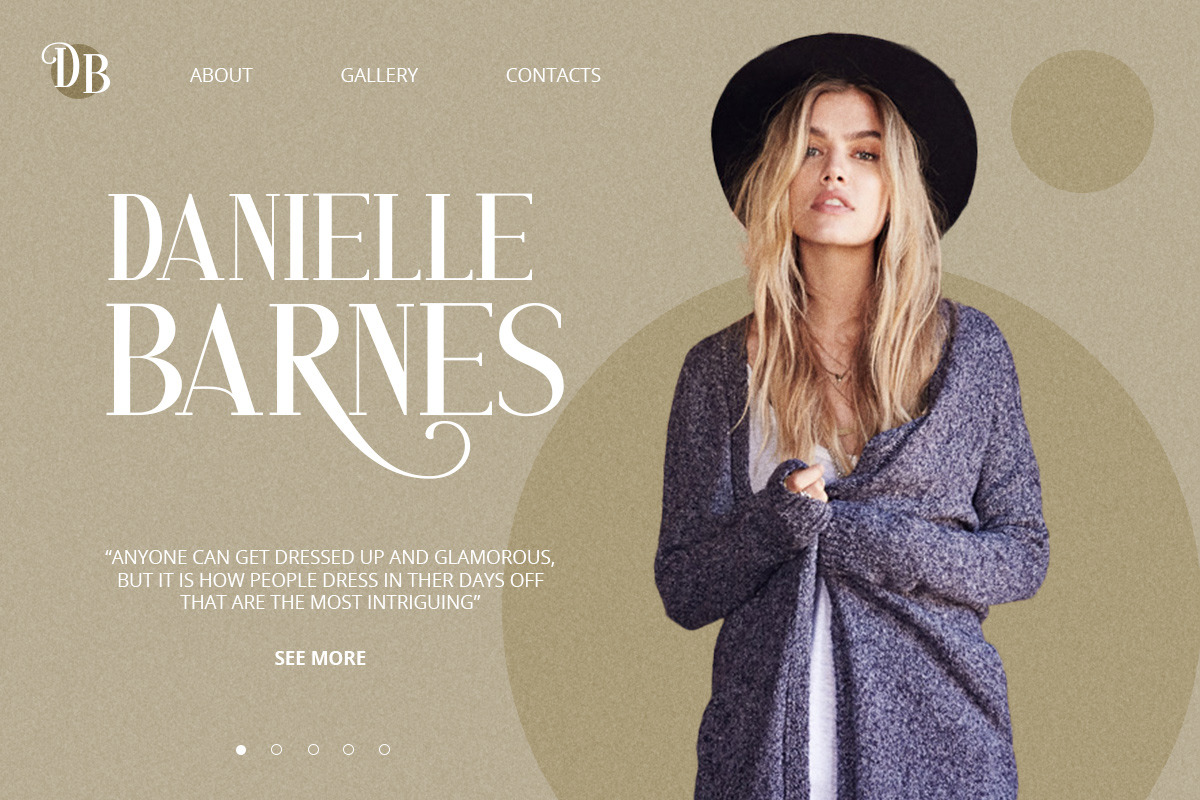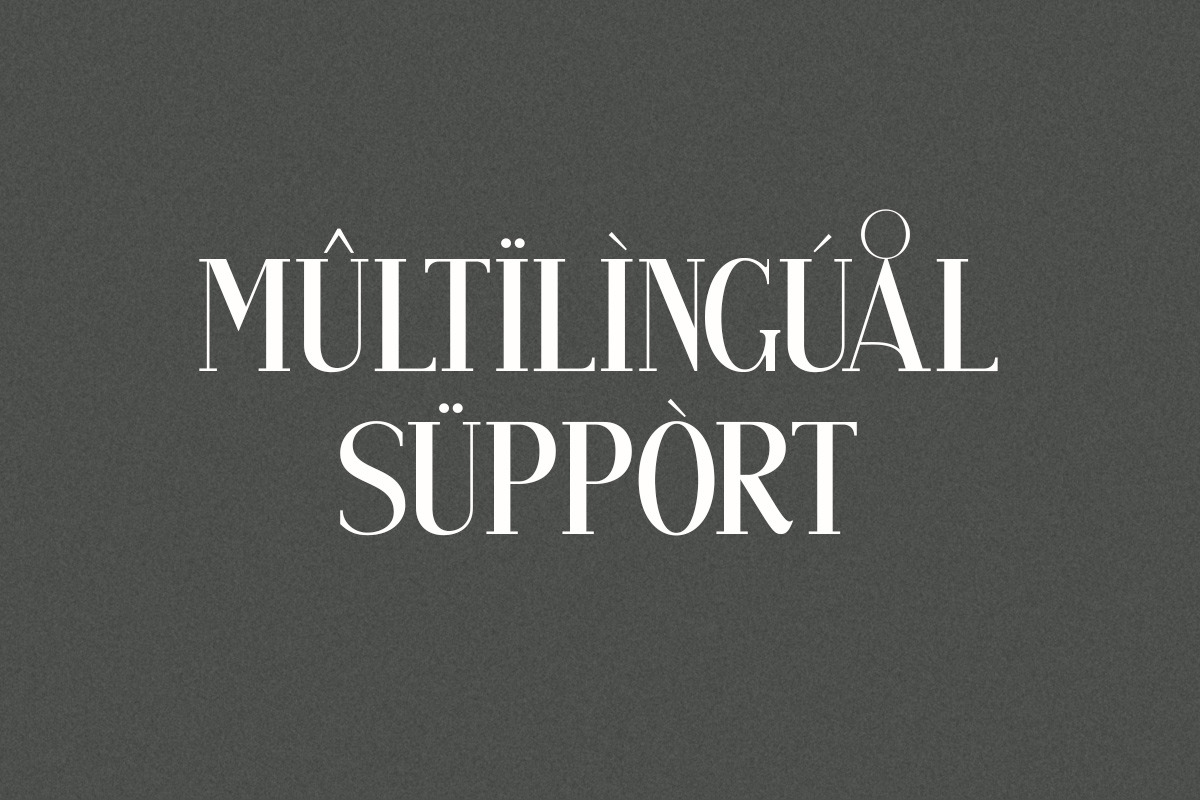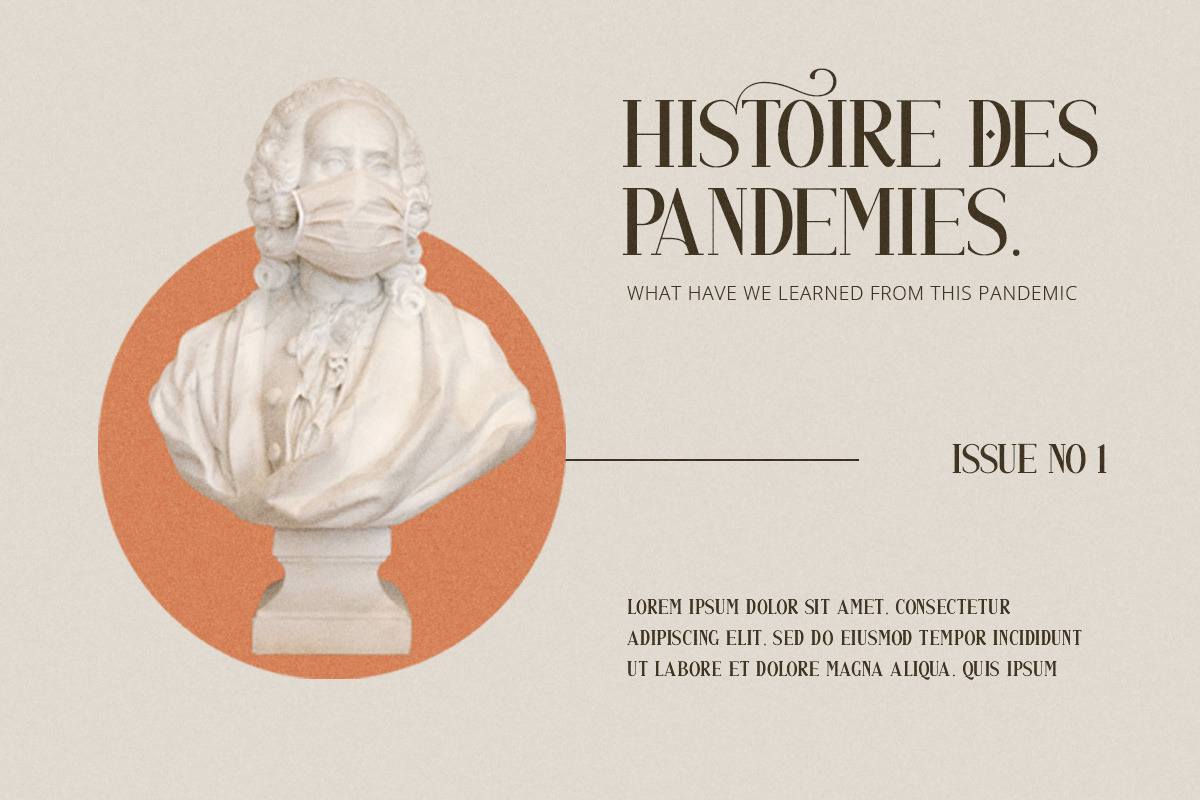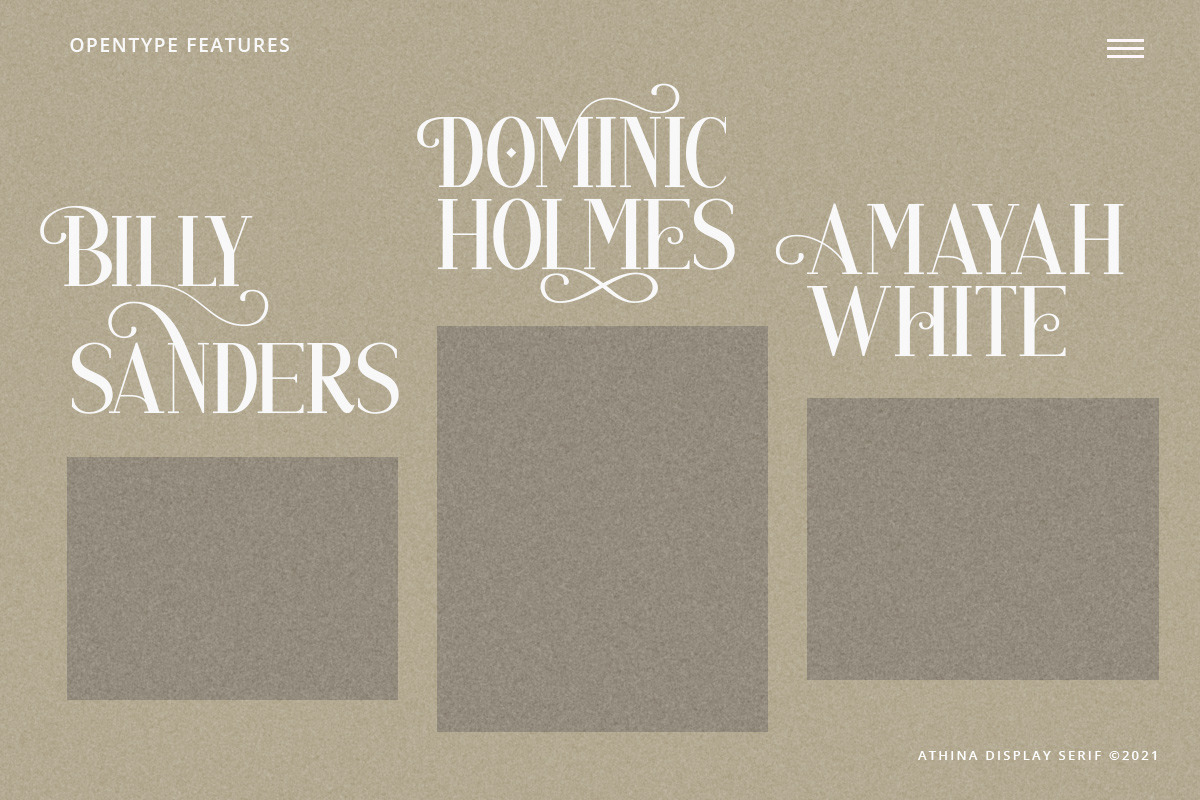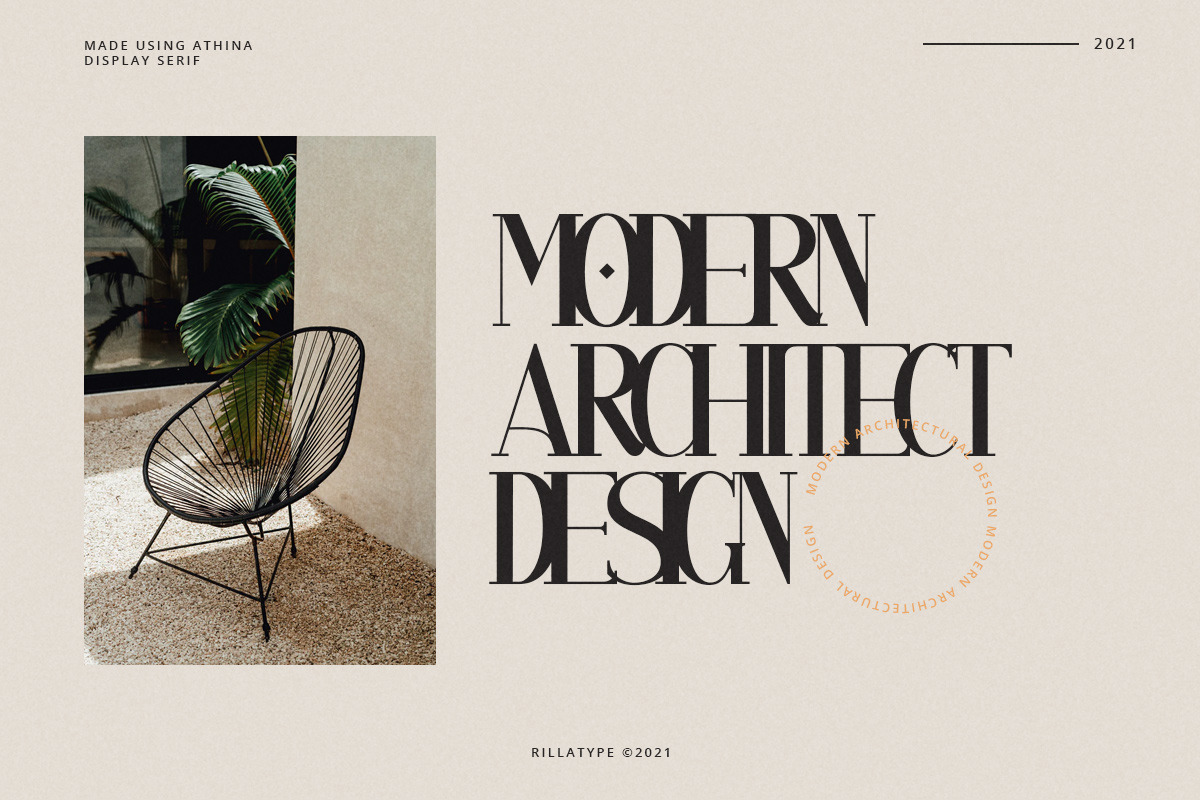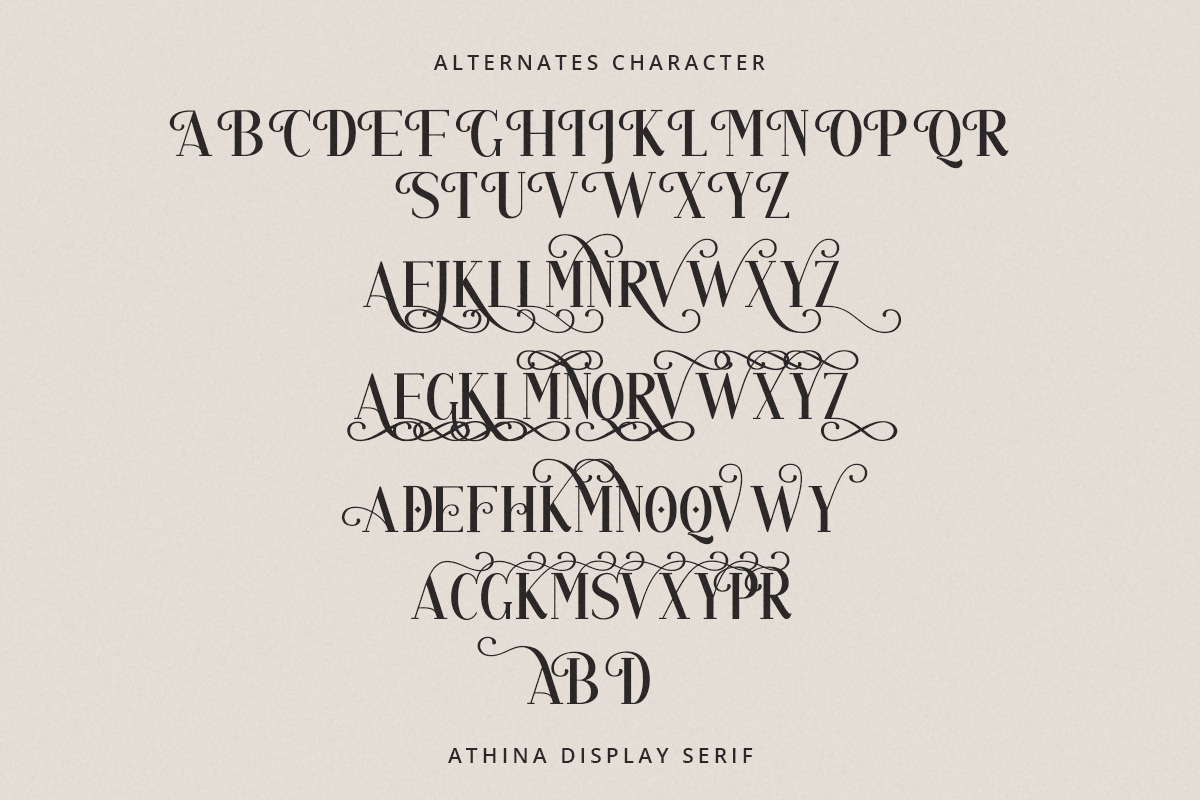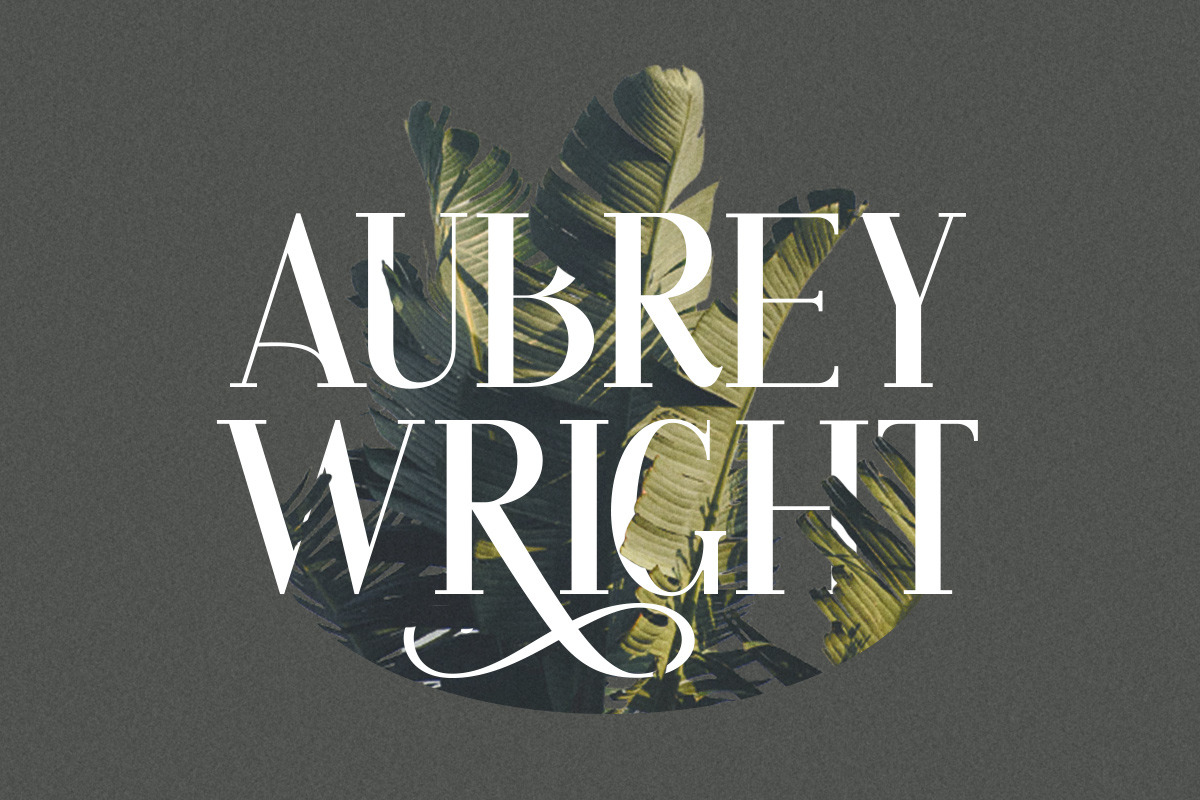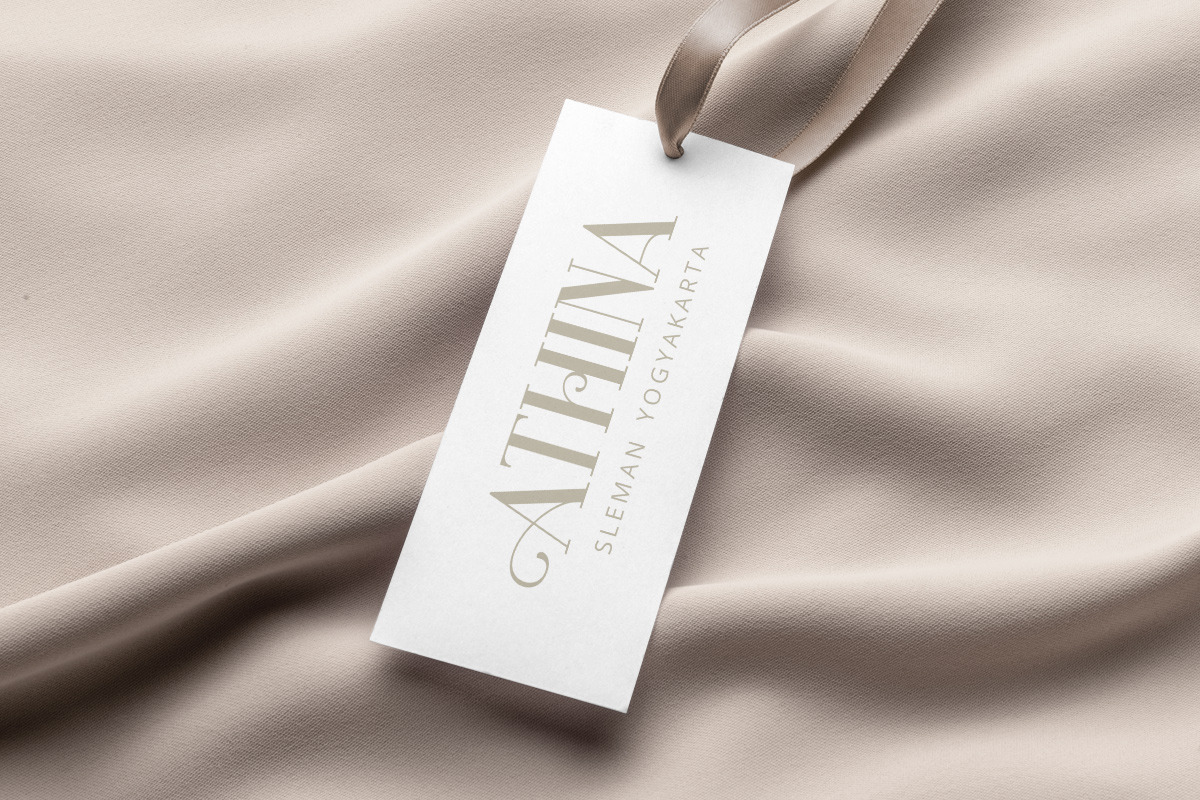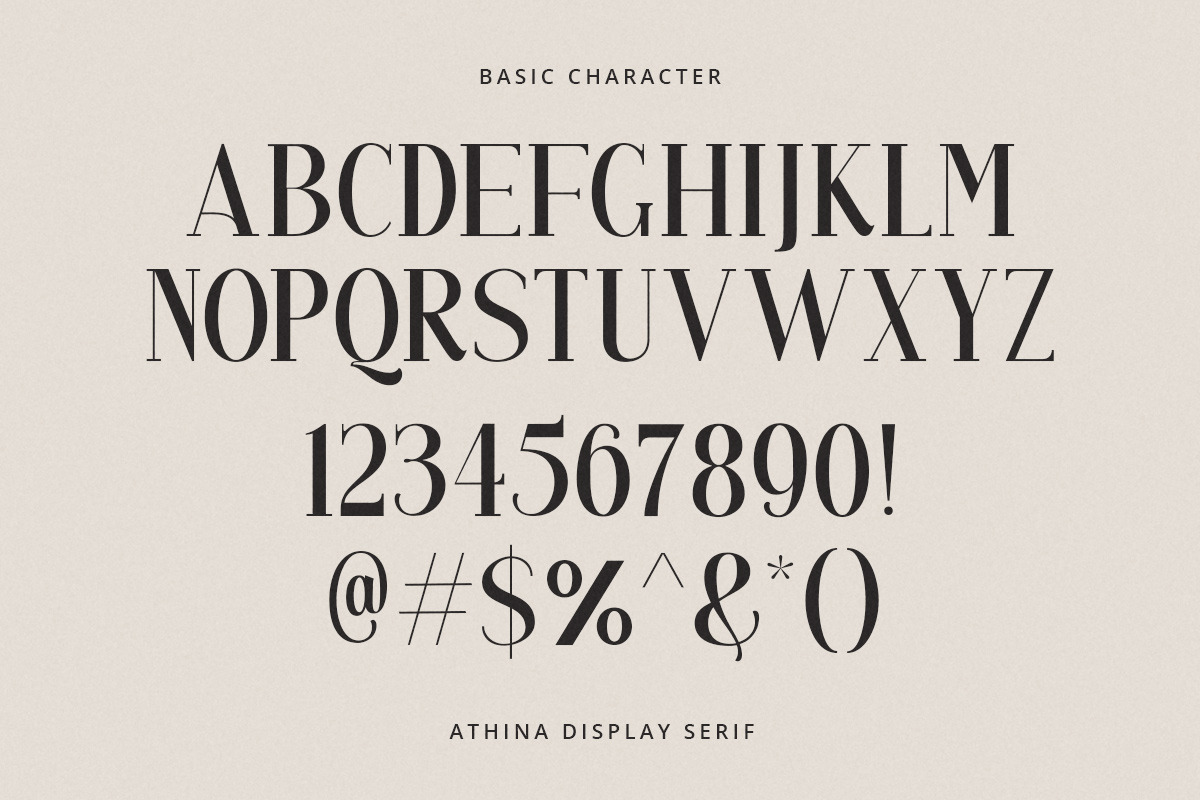
Athina - Modern Serif
Introducing our latest font, Athina! Athina is a display serif font that perfect for modern and minimalistic design. This font was carefully designed and we added the swash so this font has the ability to standout among the other! we made up to 6 stylistic character that you can choose to make your design more unique and bloom it's charm. This font is perfect for logom magazine, wdding invitation, fashion, make up, stationary, novel, etc.